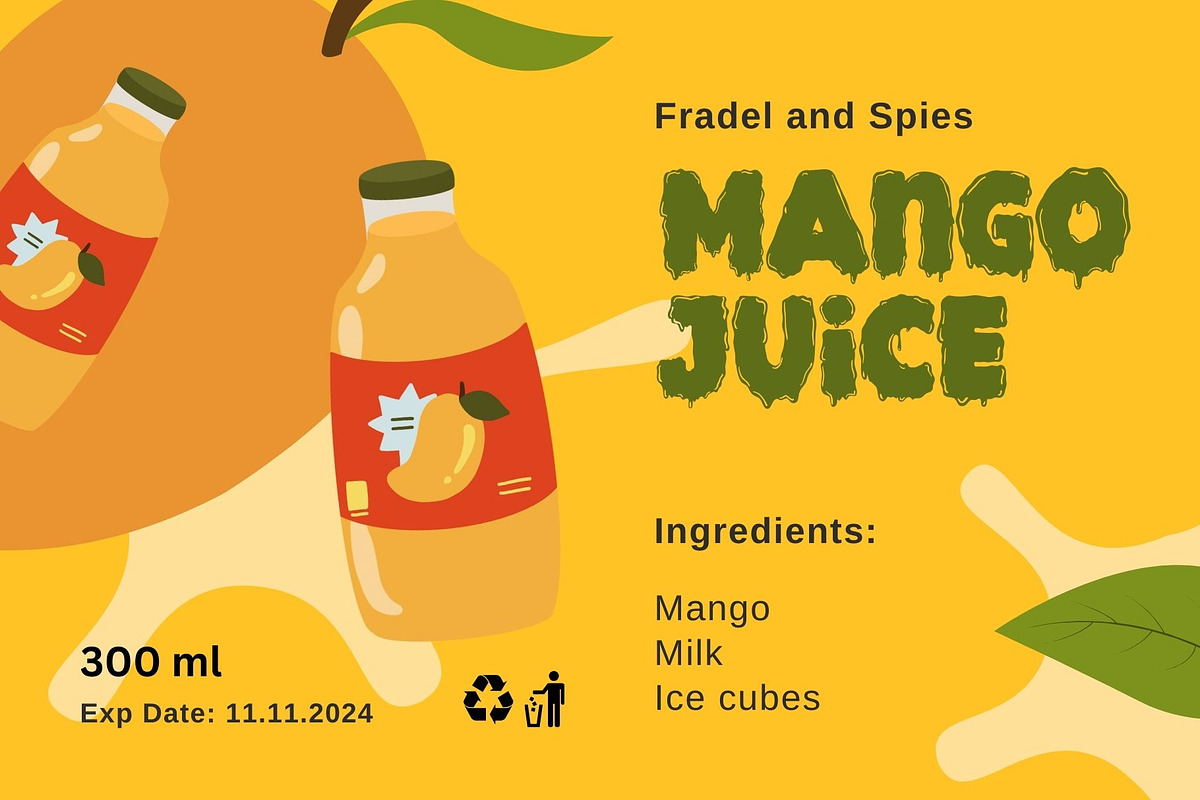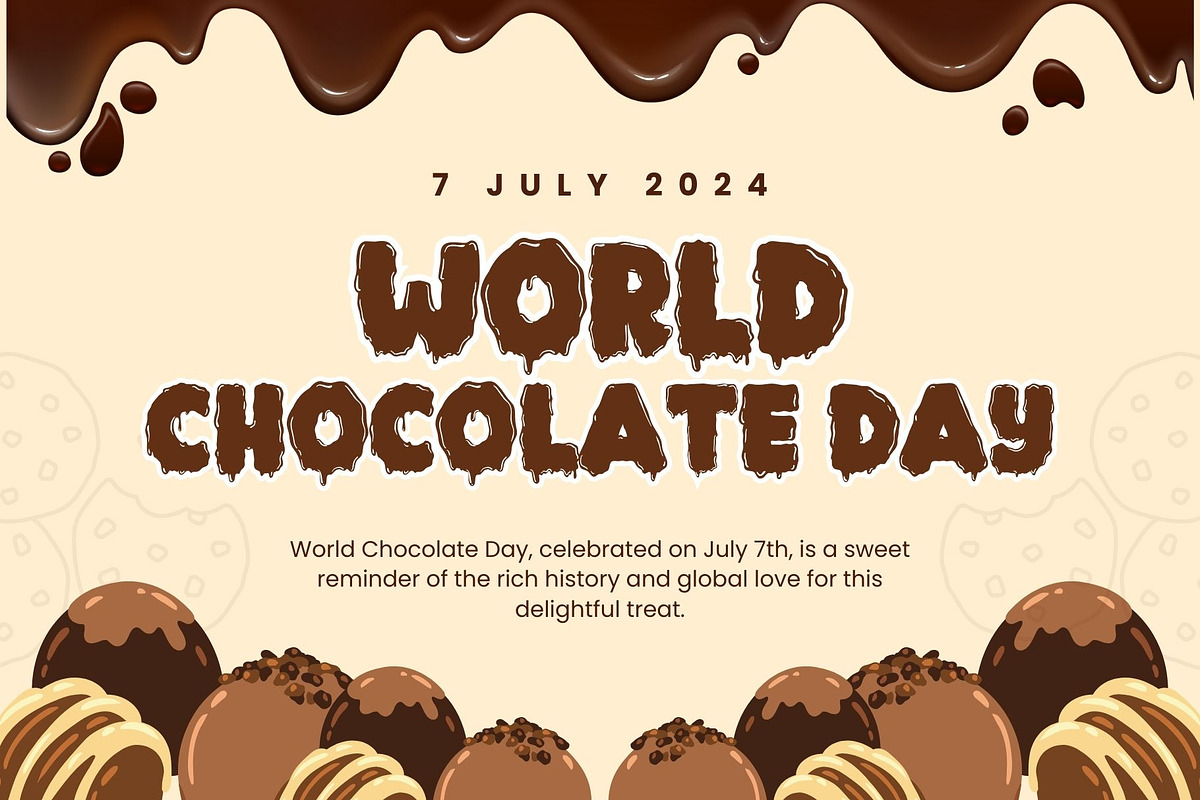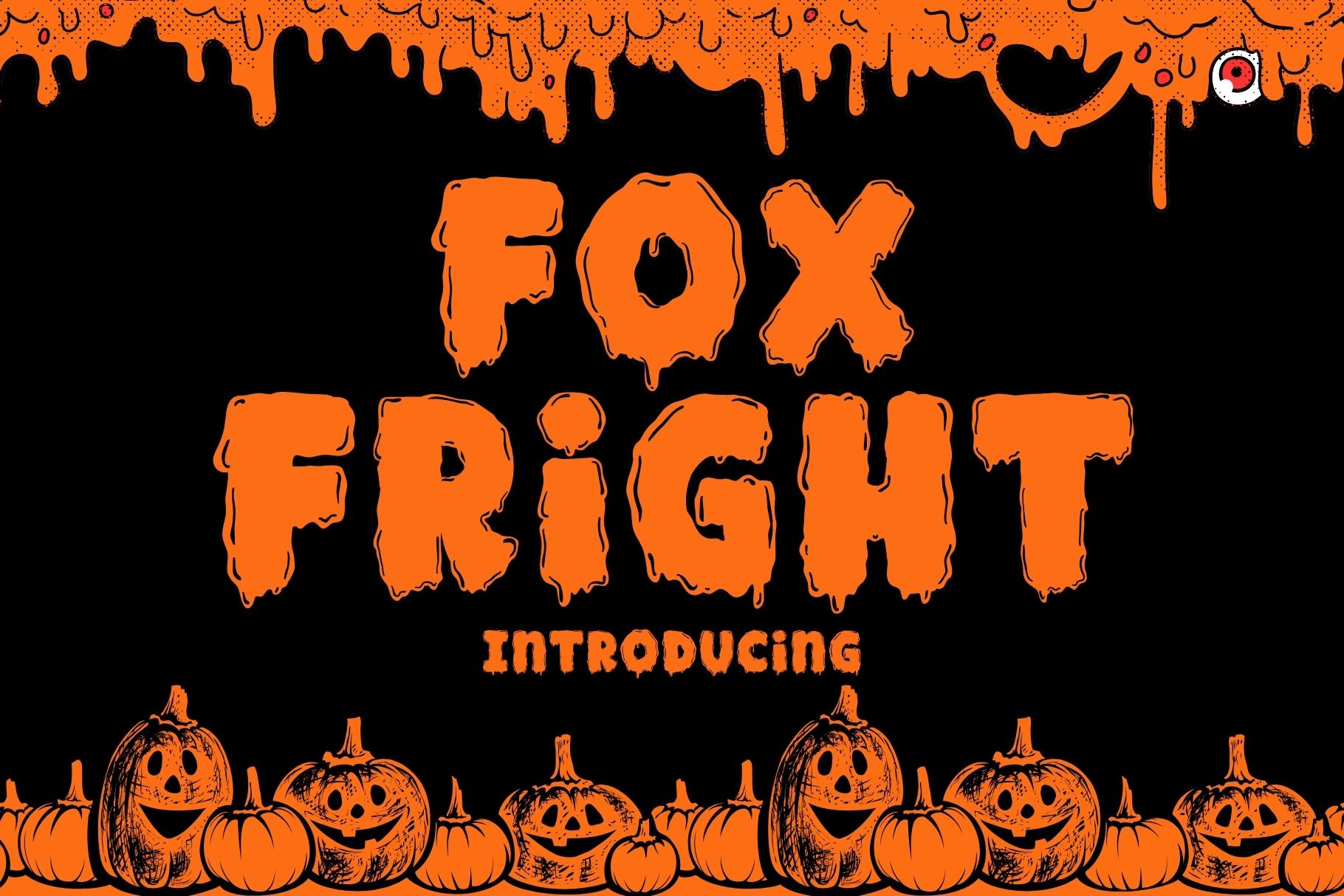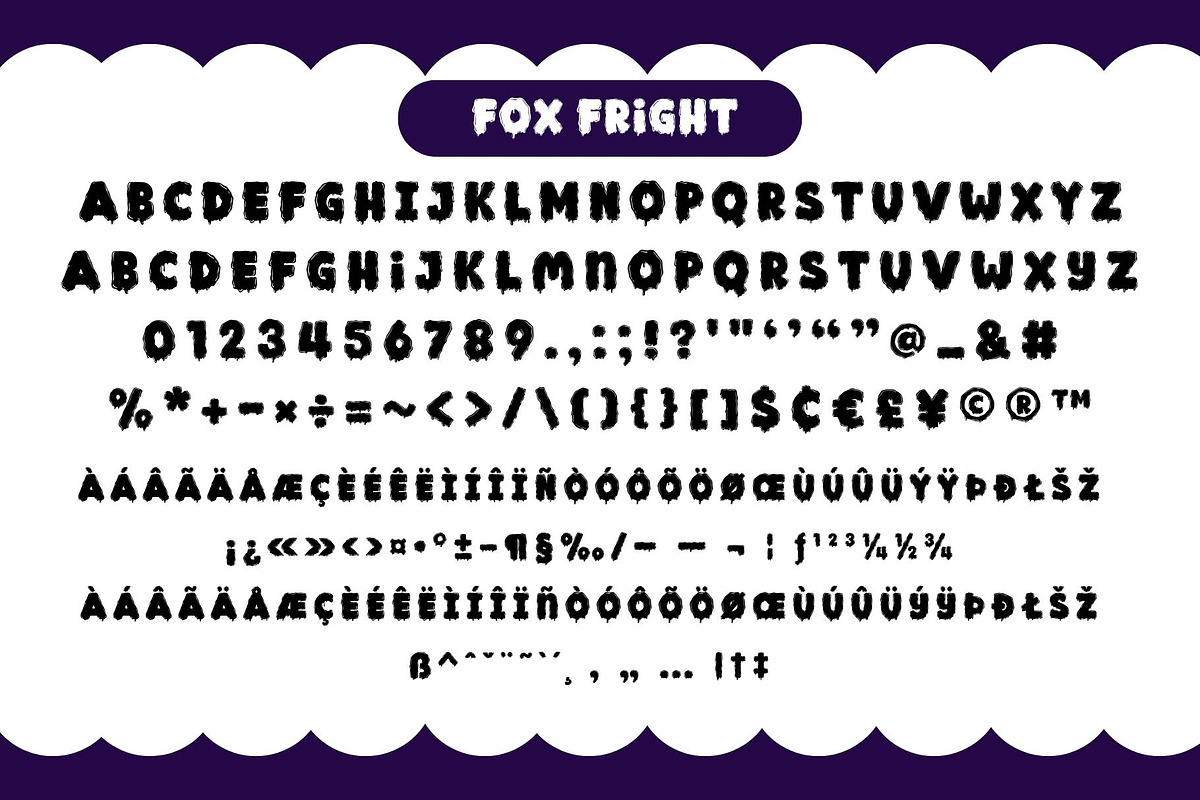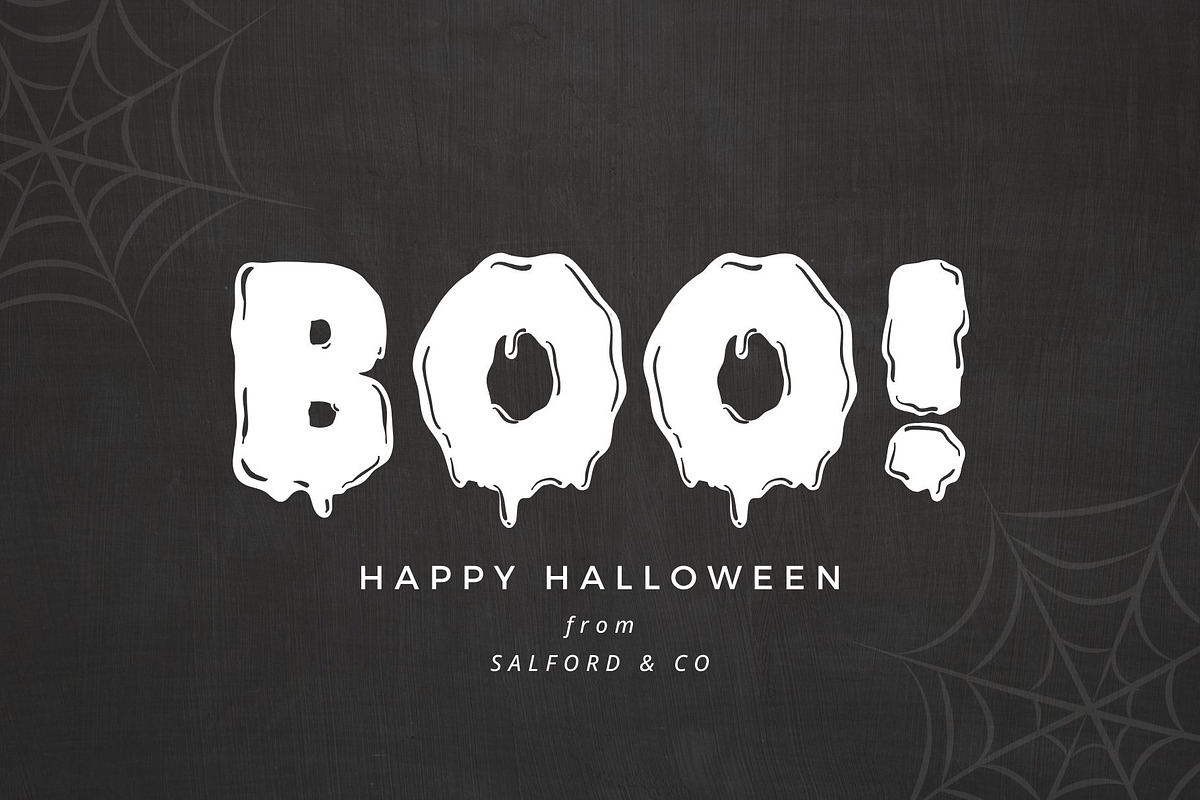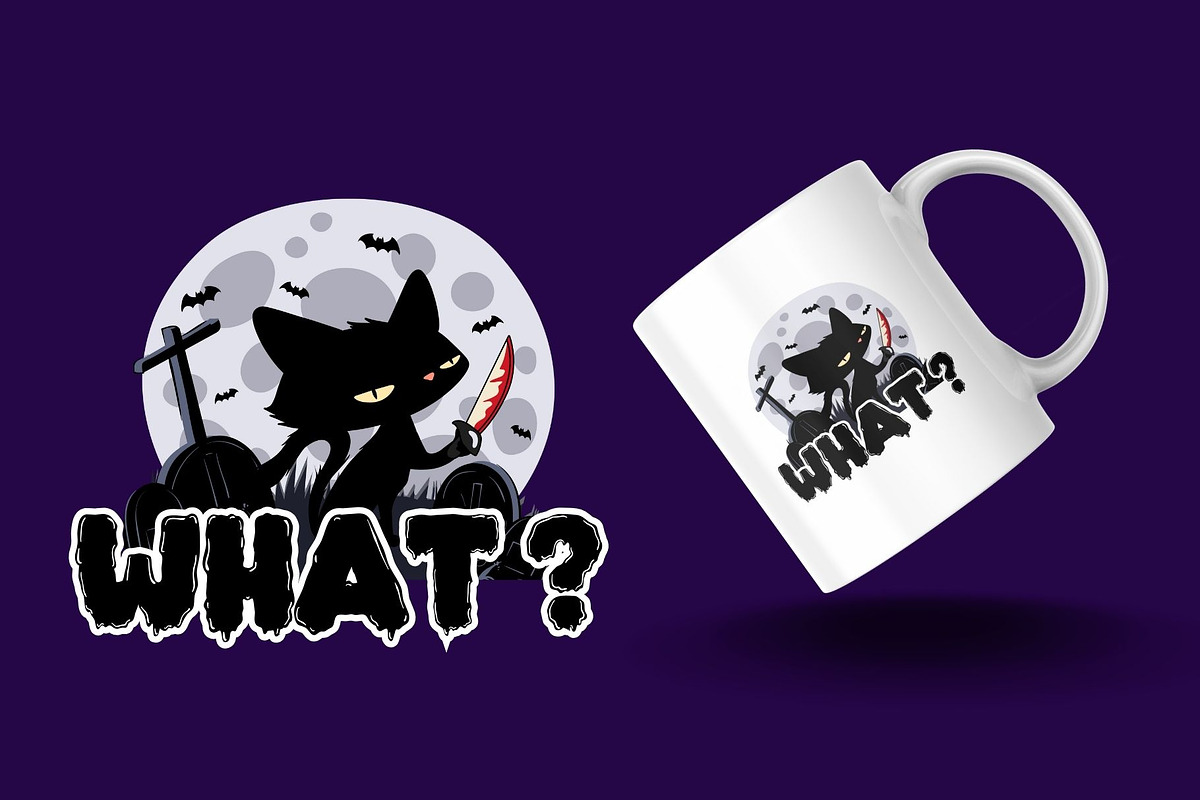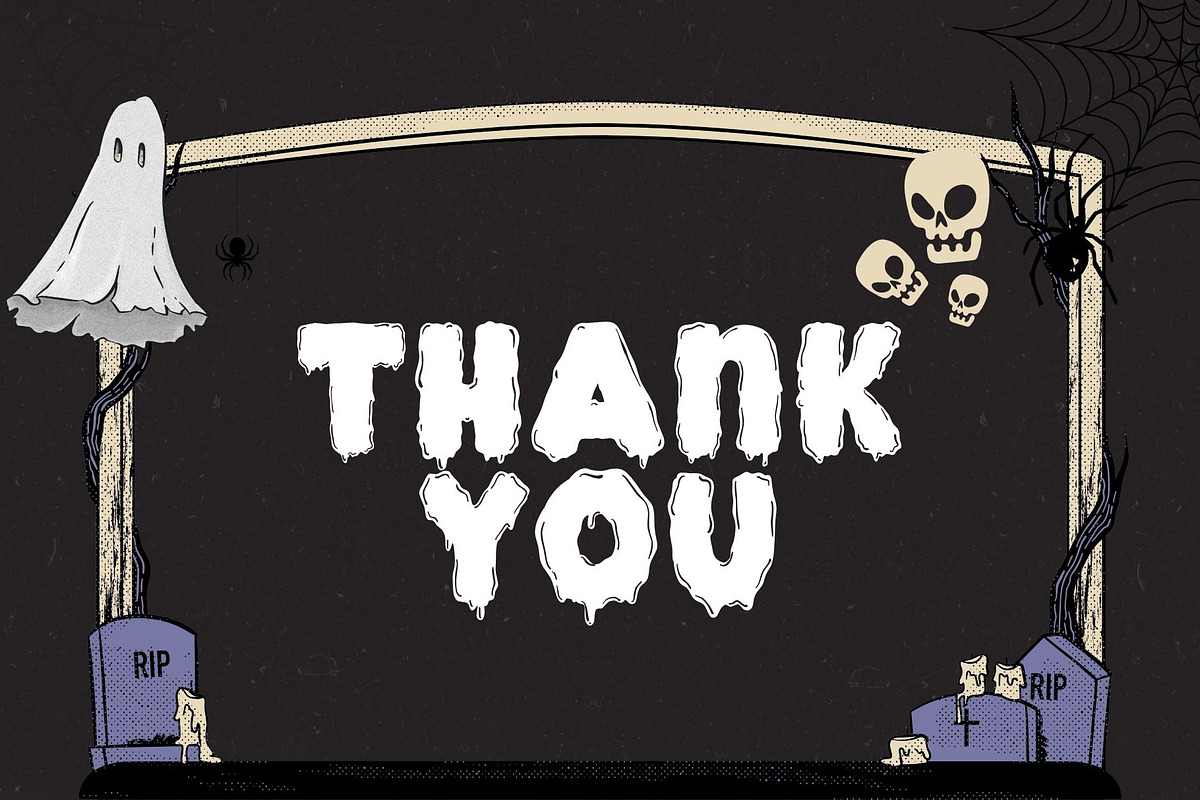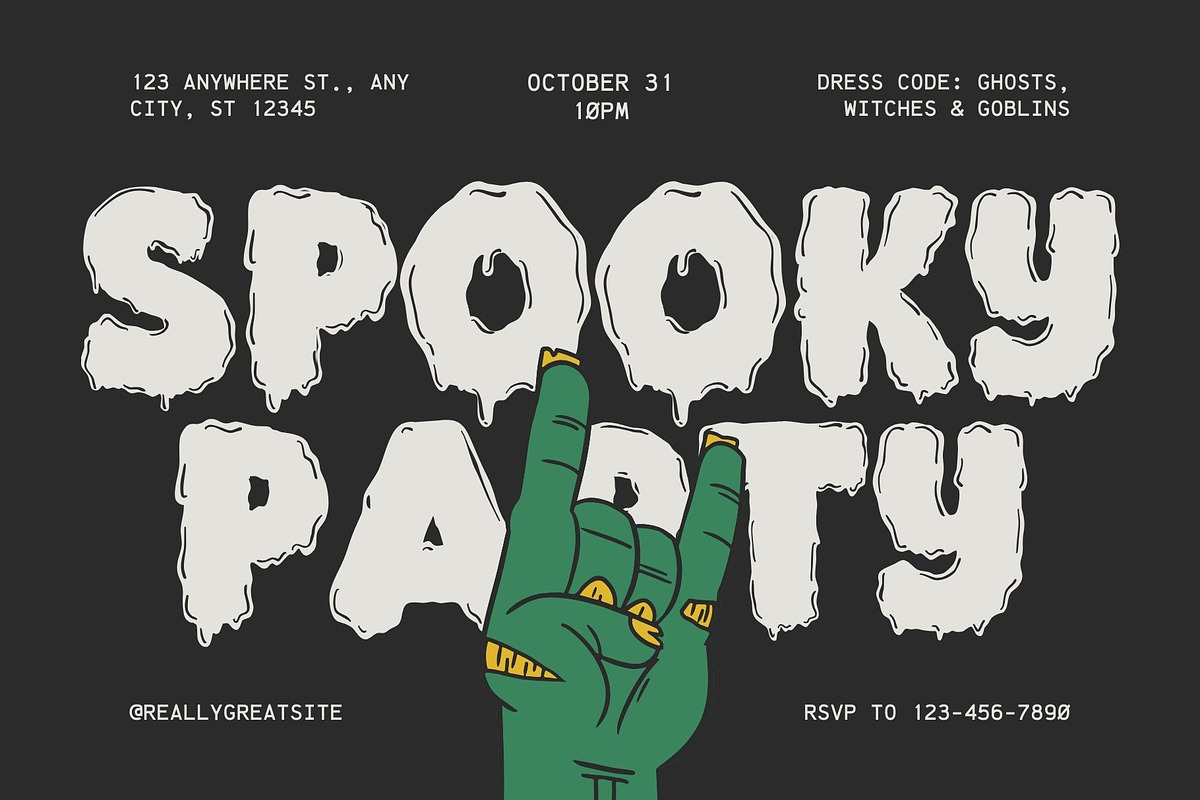
Fox Fright Font
Fox Fright is a cool and fun font suitable for a variety of designs in Halloween and children’s themes. It is perfect for logos, t-shirts, papers, print designs, website headers, photo frames, flyers, music covers, posters, image sliders, and much more.